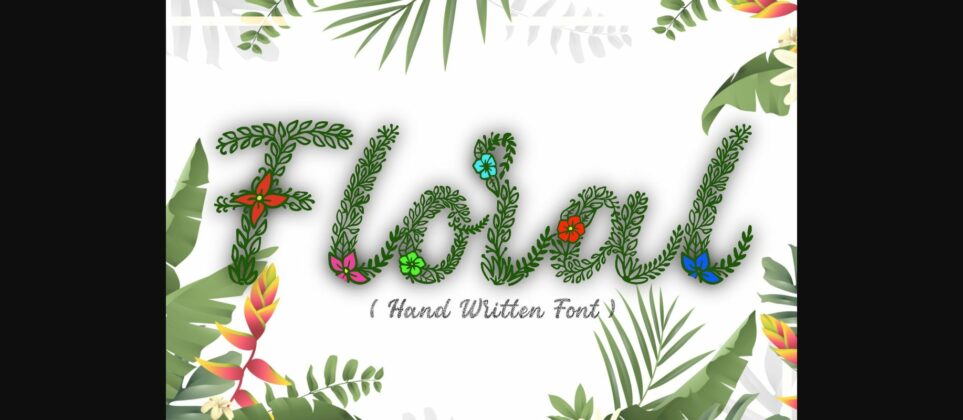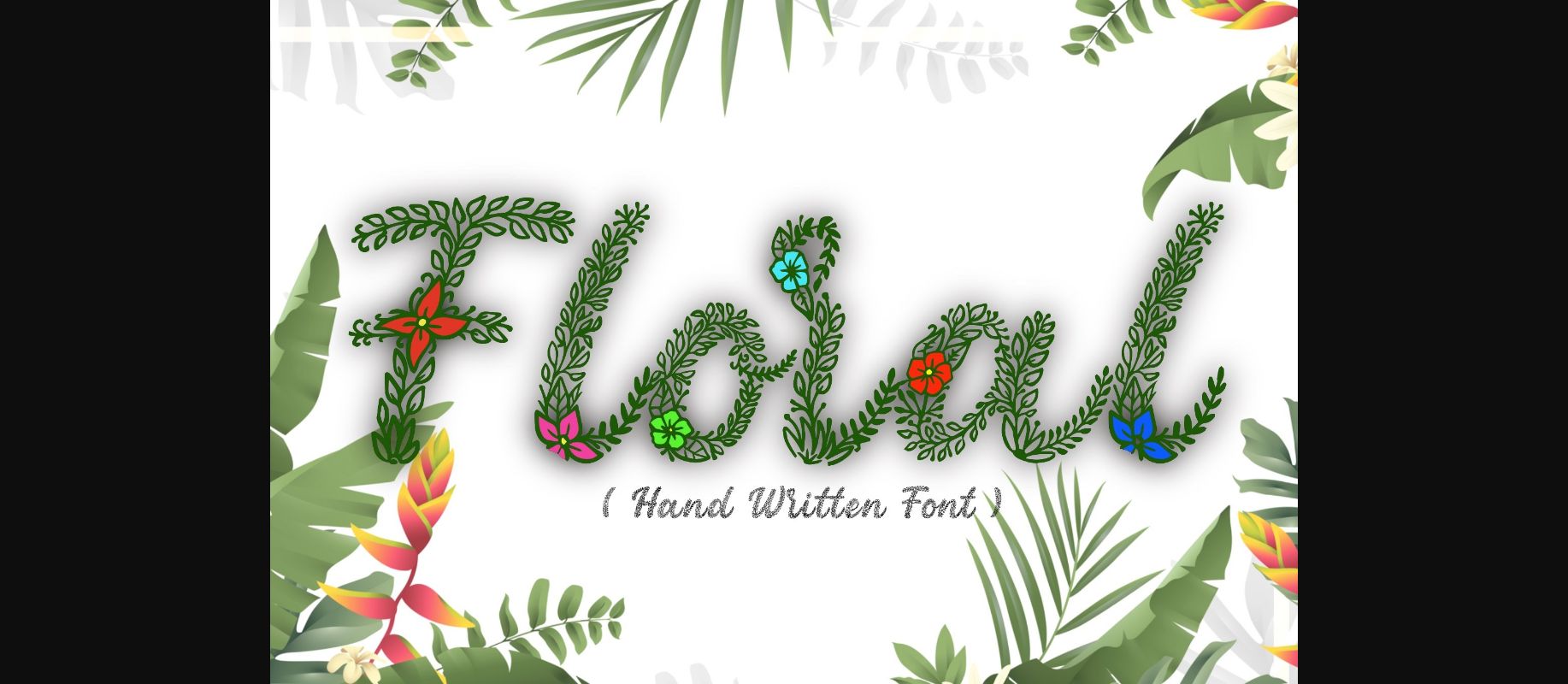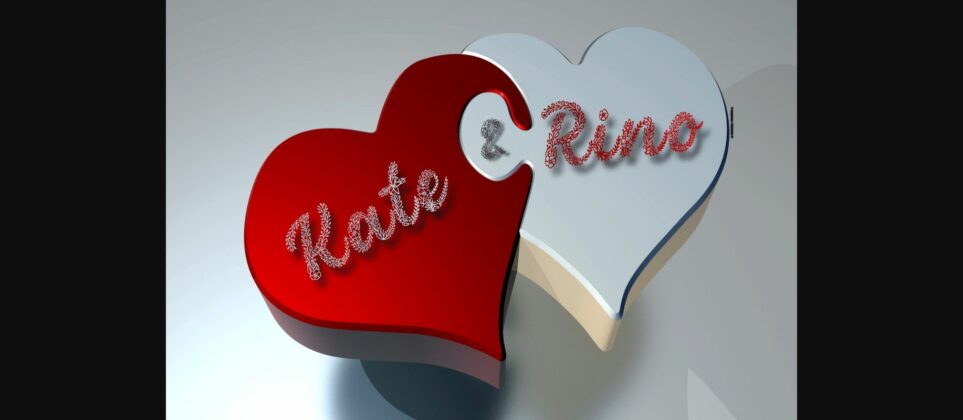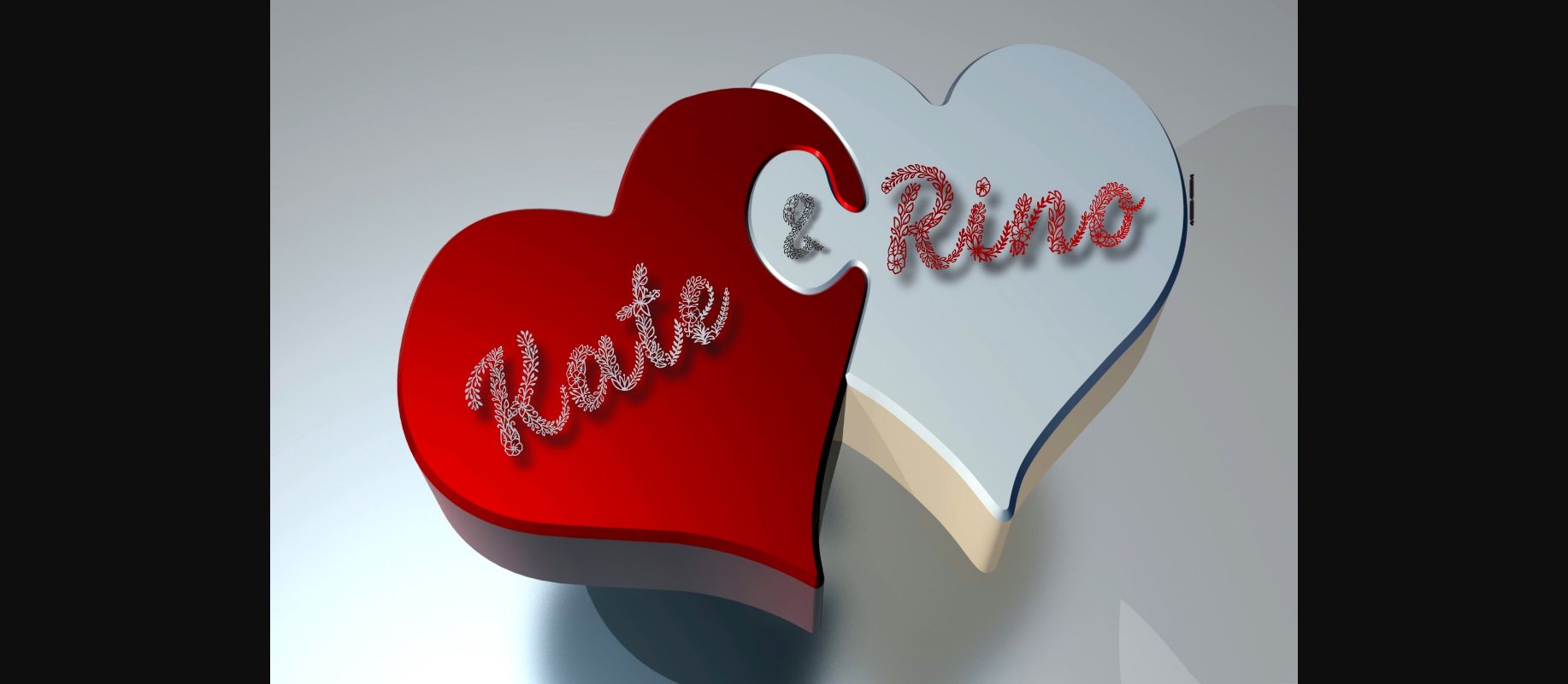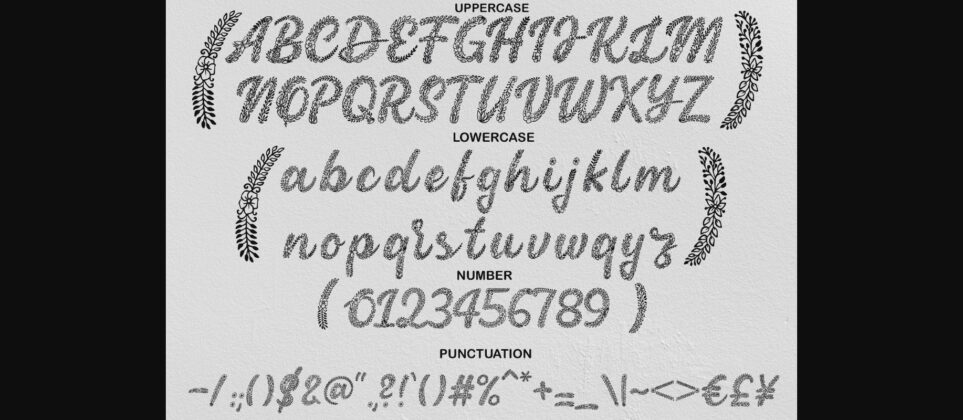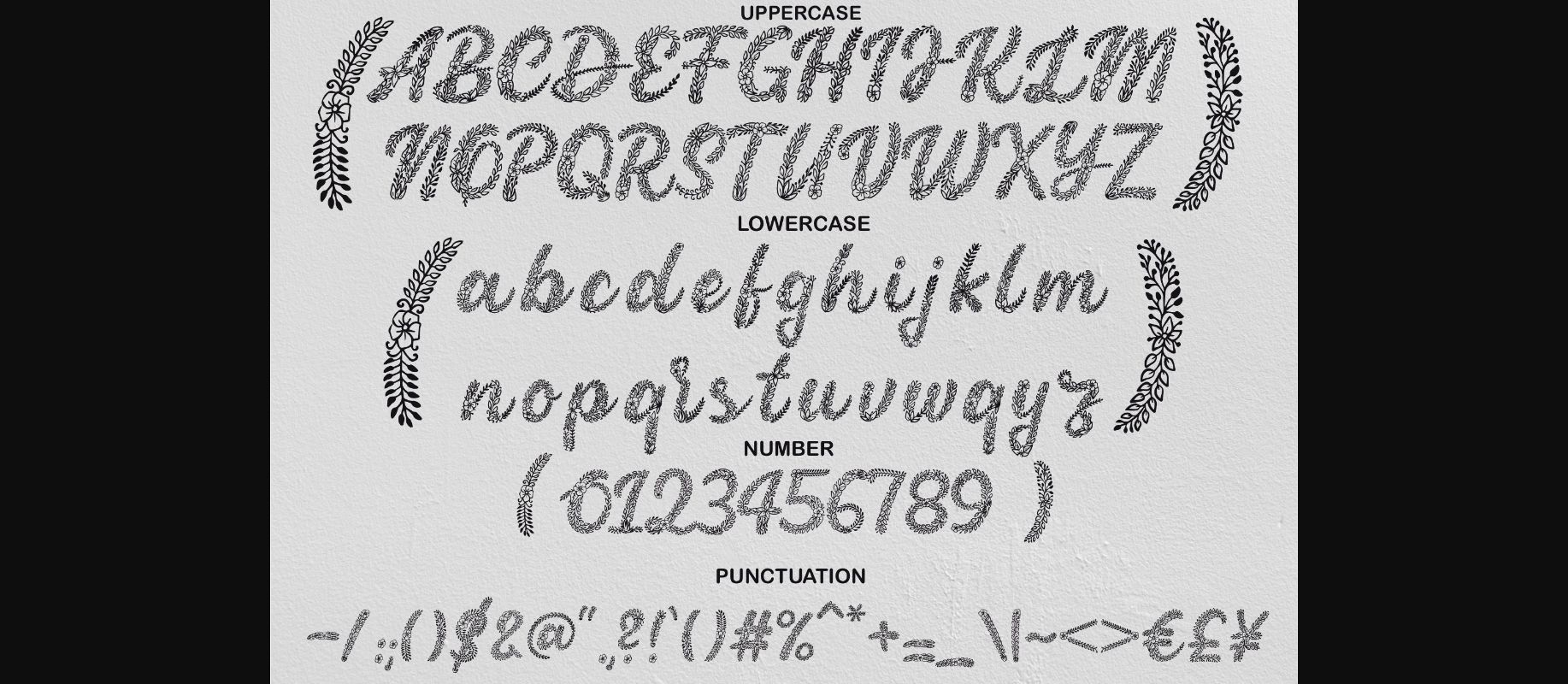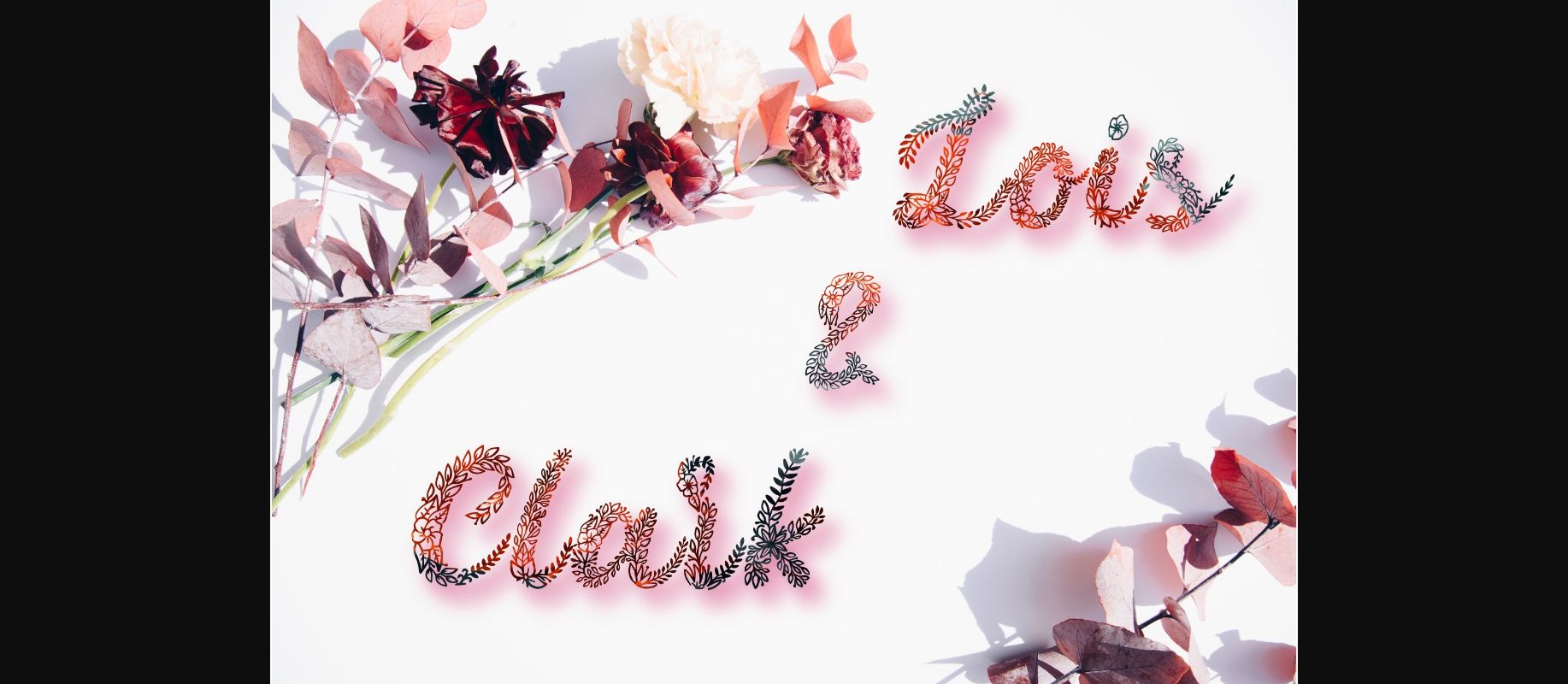
Floral Font
About Floral Font
Floral is a beautiful and detailed decorative font. It has a classy, elegant and modern look that can be used for logos, branding, invitations, stationery, wedding designs, social media posts, and much more!